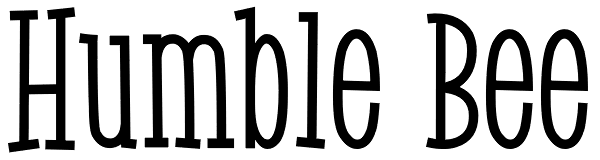
Humble Bee
Humble Bee brings funny, informal and typewriter-esque together in one super decorative font! Comes in both regular and italic to suit your every need.